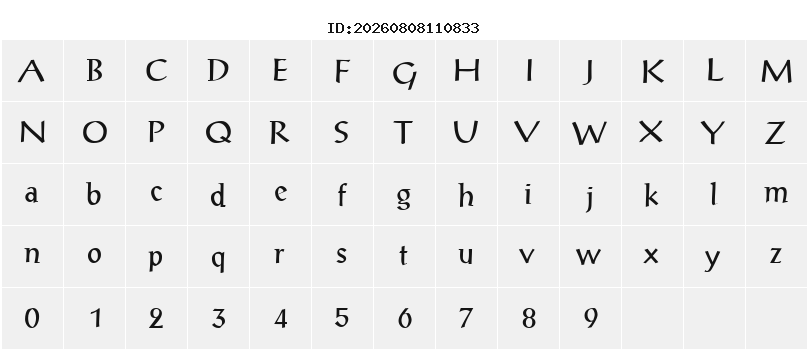
• Font Name: PortalAntiqua
About PortalAntiqua.ttf
PortalAntiqua.ttf is a modern, elegant sans-serif font designed for ultimate readability and visual harmony. Perfect for branding, headlines, web design, and print materials.